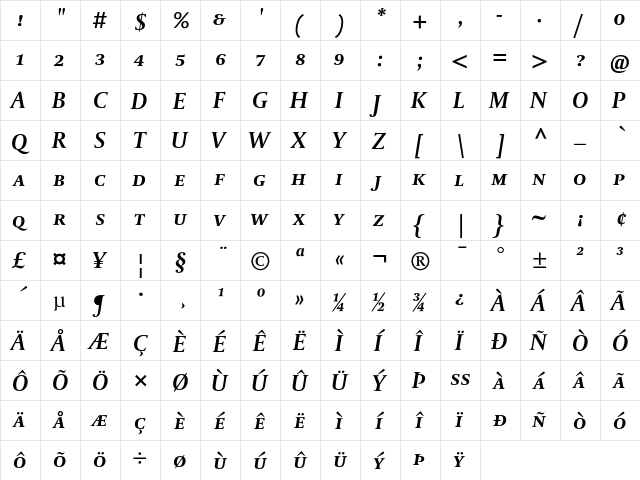
DTLParadoxTCaps BoldItalic
Design Context for DTLParadoxTCaps Typeface
DTLParadoxTCaps is a composed and adaptable typeface that performs quietly and consistently across a wide range of design contexts. The slanted form adds forward momentum and visual energy. Its bold stroke weight gives it real presence on the page.
Pro Tip: Try DTLParadoxTCaps for annotation and caption copy alongside an upright companion — the contrast in angle creates a dynamic but ordered typographic system.